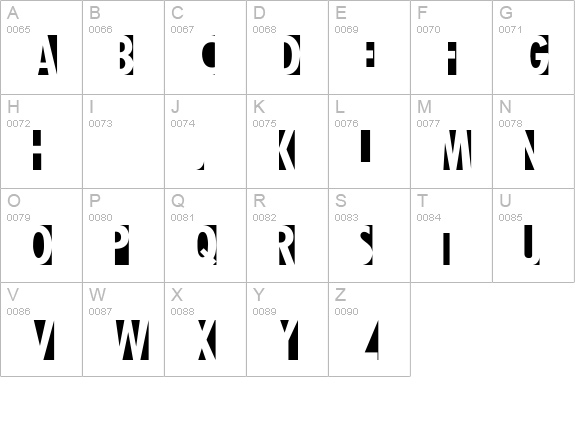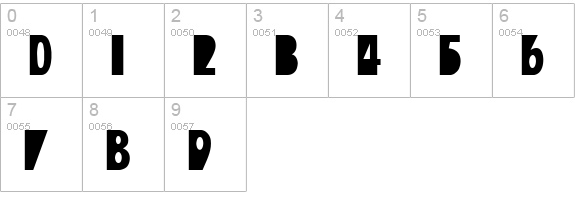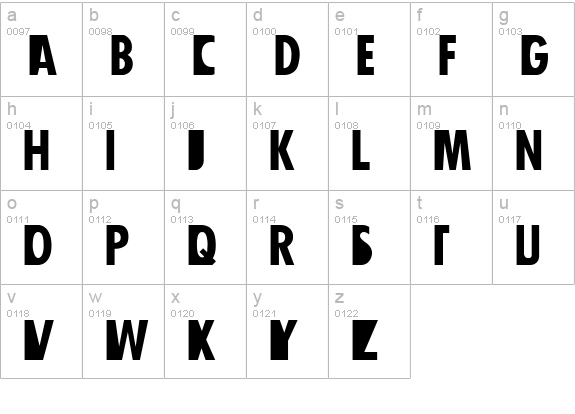
Healthy Alternative Font Details
The Healthy Alternative font is a visually captivating typeface that embodies the essence of health, vitality, and wellbeing. With its sleek and modern design, this font exudes a sense of freshness and rejuvenation, making it the perfect choice for any project that aims to promote a healthy lifestyle. This font is not only aesthetically pleasing, but it also offers a unique and innovative approach to typography. Its clean lines and balanced proportions create a harmonious visual experience, ensuring that your message is conveyed with clarity and impact. One of the most remarkable features of the Healthy Alternative font is that it is completely free. Yes, you heard that right! This font is freely available to download at FontsMarket.com, making it accessible to everyone who wants to add a touch of health and wellness to their designs. Whether you are designing a logo for a fitness brand, creating a poster for a wellness event, or crafting a menu for a health-conscious restaurant, the Healthy Alternative font will elevate your designs to a whole new level. Its versatility allows it to seamlessly blend into various design styles, from minimalist to bold and vibrant. In addition to its stunning appearance, the Healthy Alternative font also boasts excellent legibility, ensuring that your message is easily readable across different mediums. Whether it is displayed on a website, printed on a brochure, or used in social media graphics, this font will maintain its clarity and impact. So why settle for ordinary fonts when you can choose the Healthy Alternative font? Its combination of style, accessibility, and versatility make it the perfect choice for any designer or creative individual looking to inspire and promote a healthy lifestyle. Download it for free at FontsMarket.com and start creating designs that truly stand out.